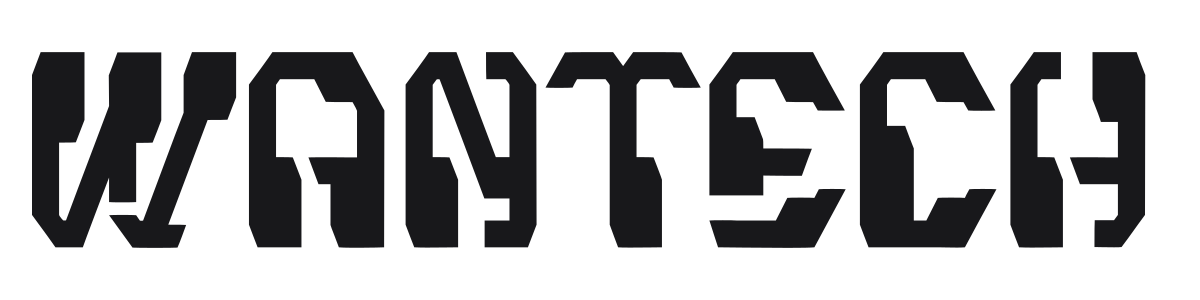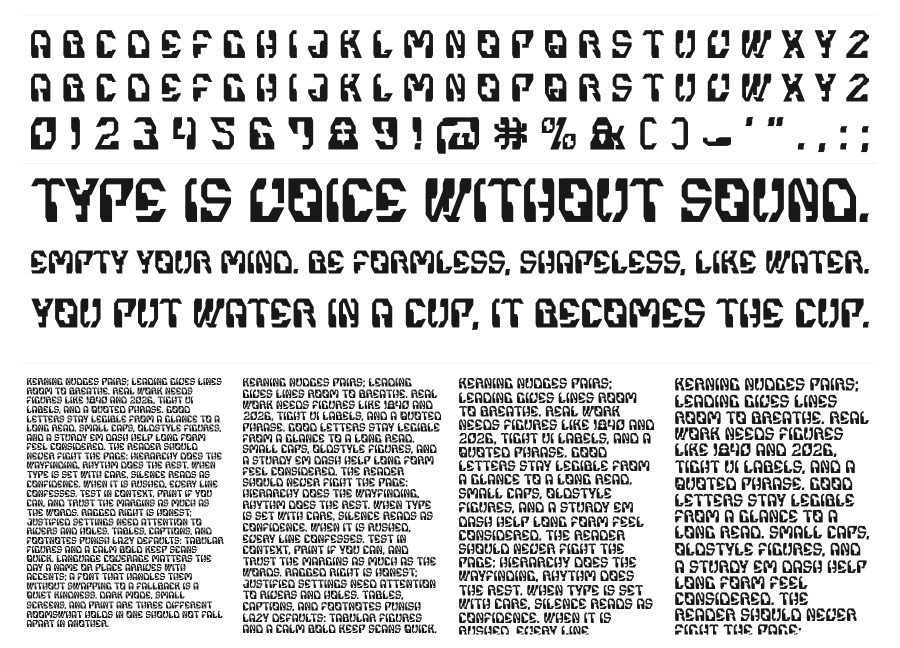
Wantech
Wantech is a heavy geometric stencil display font built from modular rectangular segments with sharp cutout notches at corners and intersections. The fragmented construction gives it a raw, tactical quality reminiscent of military stenciling and industrial marking systems. Strong at large sizes on posters, packaging, and gaming visuals where bold impact is the priority.